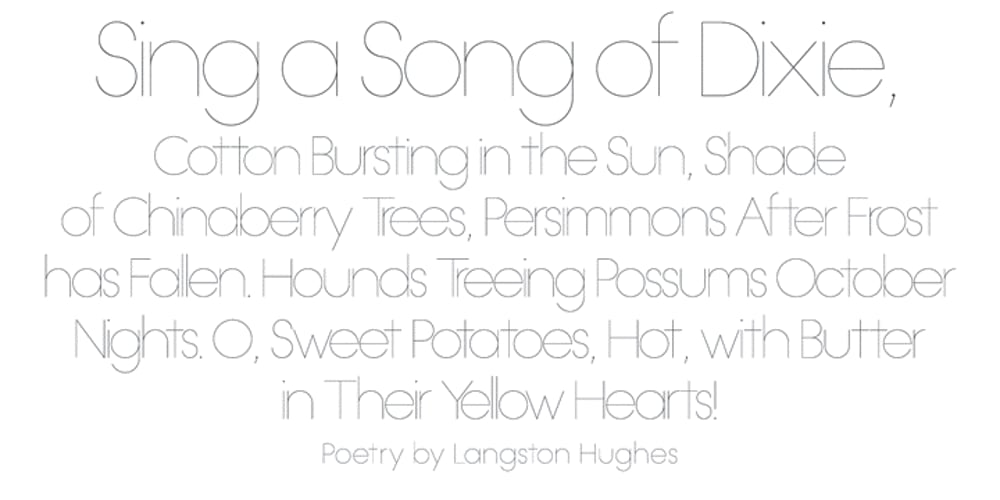
OL Hairline Gothic Font Family was designed by Dennis Ortiz-Lopez and published by Dennis Ortiz-Lopez. OL Hairline Gothic contains 2 styles and family package options. There is just one subtle difference between these two fonts. The A version has a straight lowercase ‘e’; the B version has an angled lowercase ‘e’.